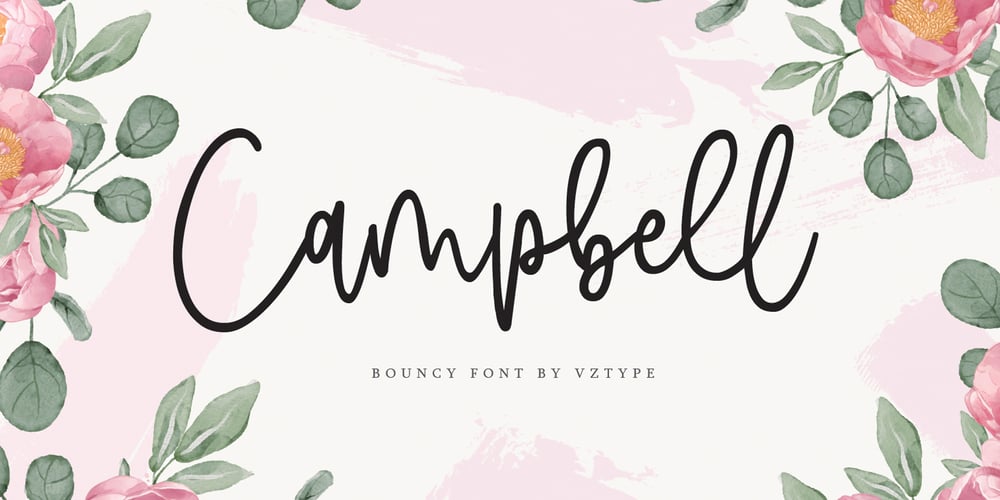
Campbell
Campbell font
Campbell Font Family was designed by Randi Ilhamsyah and published by VzType. Campbell contains 1 styles and family package options. Campbell is a stylish modern calligraphy font with casual chic flair. It is perfect for branding, wedding invites and cards.